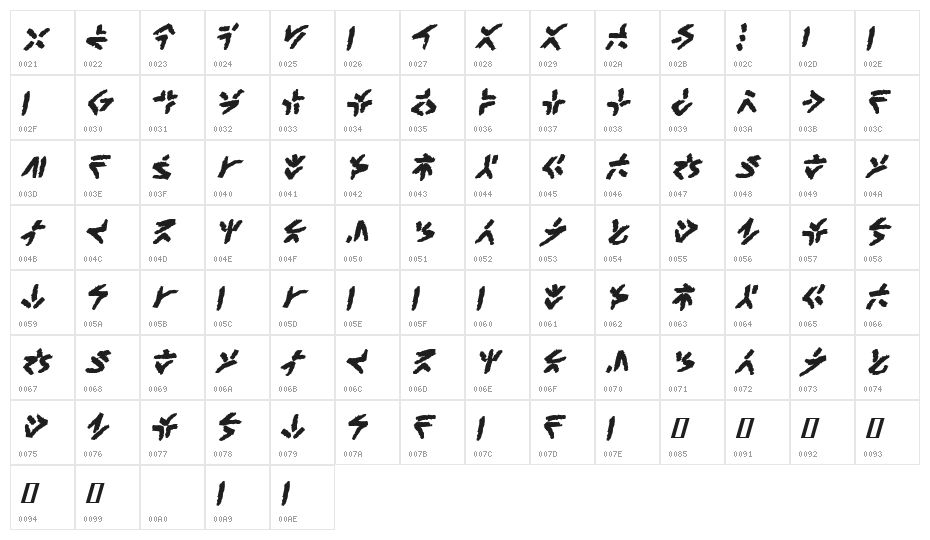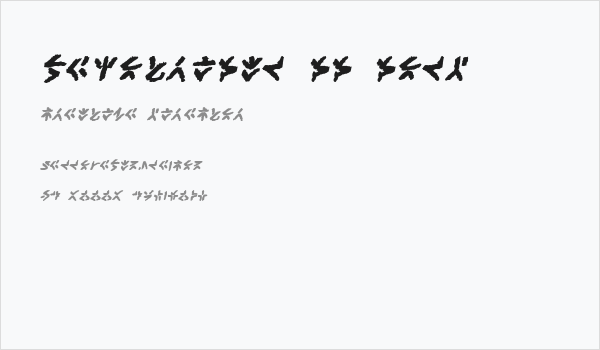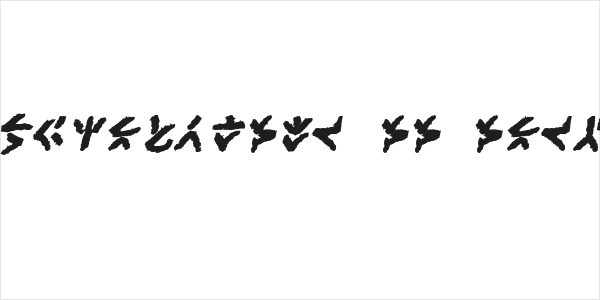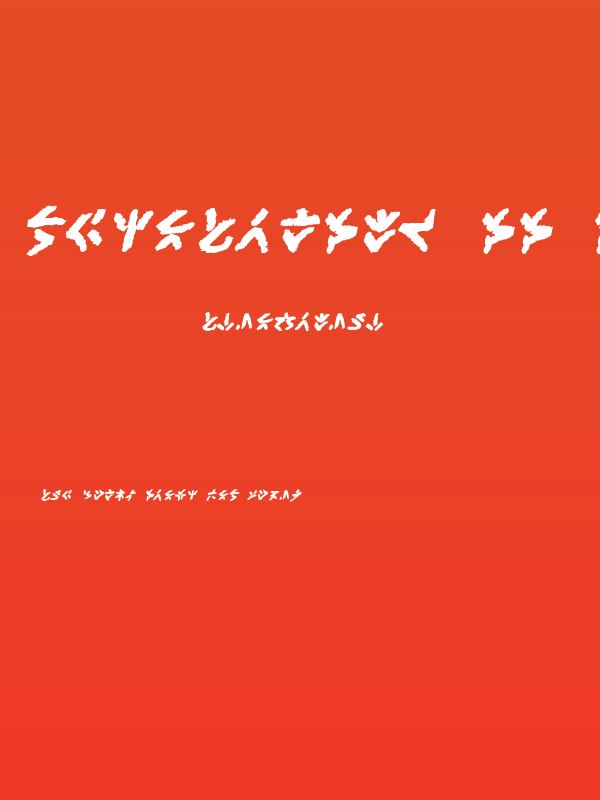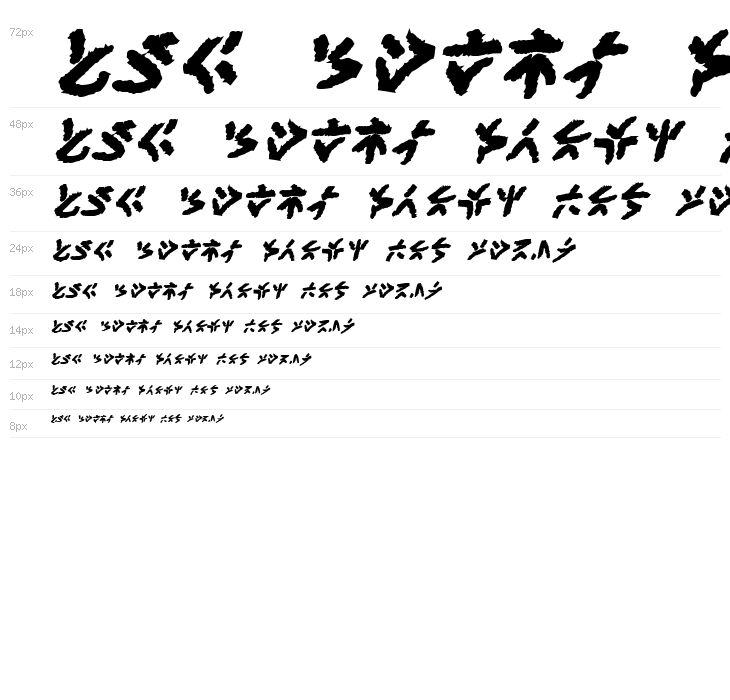
XenoTribal BB Bold Font
XenoTribal BB Bold Description
This font features a bold, tribal-inspired design with a strong emphasis on angular and geometric shapes. The characters are heavily stylized, giving them a unique and artistic appearance. The strokes are thick and consistent, creating a sense of power and intensity. The overall design is reminiscent of ancient symbols or runes, making it ideal for projects that require a touch of mystery or cultural depth. The font's distinctive style makes it stand out, ensuring that any text set in this typeface will capture attention.
| Use Case | Logos, Posters, Branding |
| Proposed Projects | Ideal for use in logos, posters, and branding projects that aim to convey strength and cultural depth. |